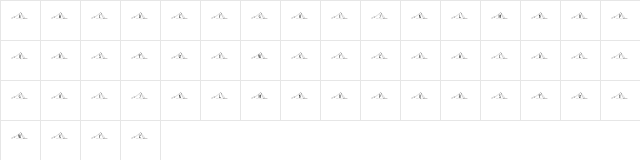
KR Pyramid Regular
Design Context for KR Pyramid Typeface
KR Pyramid is a composed and adaptable typeface that performs quietly and consistently across a wide range of design contexts.